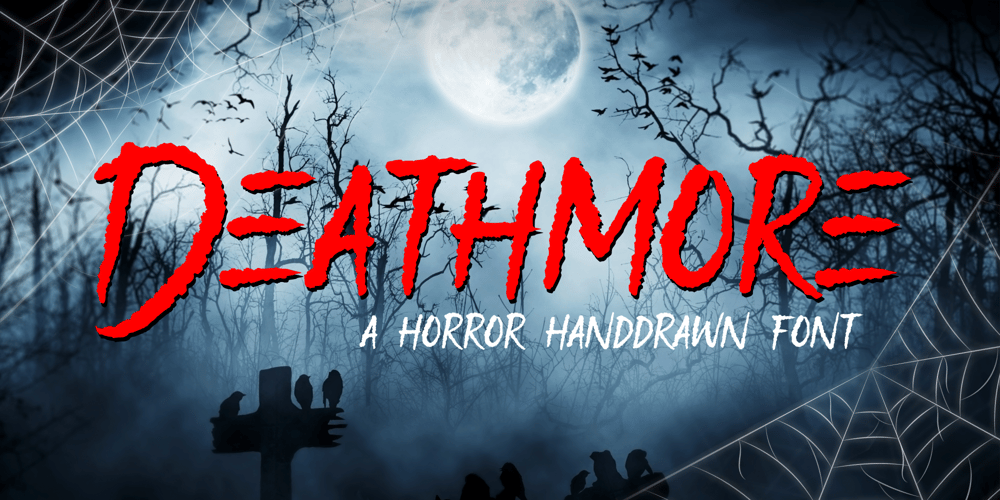
Deathmore Font Family was designed by Fachrizal Yusuf and published by Allouse Studio. Deathmore contains 1 styles and family package options. Proudly Presenting, Deathmore A Horror Handdrawn Font.Deathmore is perfect for any titles, logo, product packaging, branding project, megazine, social media, wedding, or just used to express words above the background.Deathmore also come with Multi-Lingual Support.Enjoy the font, feel free to comment or feedback, send me PM or email. Thank You!